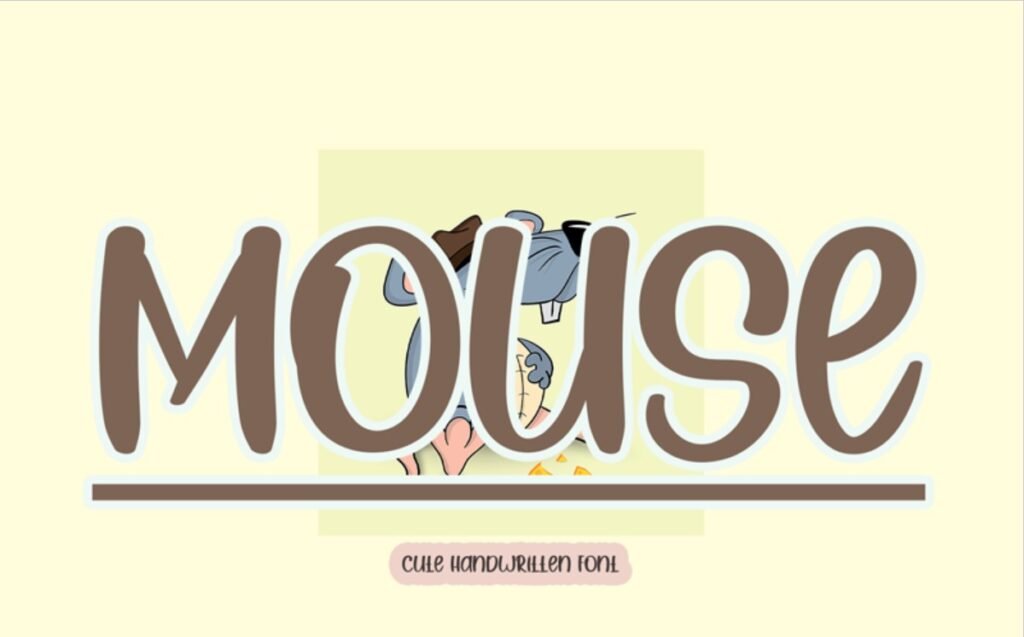
Mouse Font is one of the most preferred typefaces among designers looking to put some fun and whimsy into their projects. This typeface is known for its appealing curves and engaging style which makes it suitable for anything from children’s projects to innovative designs. It is best suited for themes that require a sense of happiness and creativity which is the reason behind its growing popularity,making it a go-to font for playful themes.
Mouse Font is an ideal choice for those looking to craft social media graphics, party invitations, or kid’s designs. It provides a perfect combination of aesthetics and legibility.
What is Mouse Font?
Mouse Font is a vibrant and jolly font inspired by cartoon styles which draws similarity to Mickey Mouse and Minnie Mouse. The drive behind its creation lies in blending fun and creativity while also ensuring legibility.
Mickey Mouse and Minnie Mouse don’t have official fonts, but fans have created a variety of fonts that resemble the iconic Disney typography. These fonts capture the essence of the characters and are popular among creatives for different types of workflows.
Key Features of Mouse Font
The charm of Mouse Font lies in its distinct design elements that make it stand out in playful typography:
- Curved Letterforms: Rounded edges and flowing strokes give the font a soft, friendly appearance.
- Playful Aesthetics: The design evokes a sense of fun, making it perfect for child-focused projects.
- High Readability: Despite its whimsical style, Mouse Font maintains excellent legibility.
- Versatile Styles: Many variations exist, including Minnie Mouse letters font and Mickey Mouse font style, offering designers flexibility.
These features make Mouse Font suitable for a wide range of creative applications.
Applications of Mouse Font
Mouse Font is incredibly versatile and can be used in various projects, especially those targeting younger audiences or playful themes:
- Children’s Books & Educational Materials: Ideal for engaging young readers.
- Posters, Flyers, & Social Media Graphics: Perfect for events, parties, and fun announcements.
- Branding for Playful Products: Great for toy packaging, kids’ clothing brands, and more.
- Greeting Cards & Invitations: Adds a whimsical touch to birthday invites, holiday cards, and special occasions.
Conclusion: Mouse Font
Mouse Font typeface is highly creative and can make any project delightful. Its curves, patterns, and application as a whole, are whimsical in nature which comes in handy when dealing with child-oriented designs.